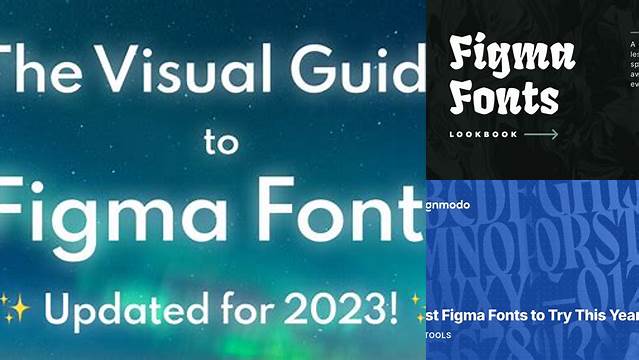
Figma Fonts: The Ultimate Guide
Hey guys! Ever wondered how to make your Figma designs pop with the perfect typography? You're in the right place! This guide is all about Figma fonts, covering everything from the basics to advanced tips and tricks. Let's dive in and make your designs look amazing!
H2: Understanding Figma Fonts
Understanding Figma fonts is the cornerstone of creating visually appealing and effective designs. Typography isn't just about picking pretty letters; it's about conveying your message clearly and creating the right mood. In Figma, you have a wide array of font options, from classic to contemporary, that can significantly impact your project's aesthetic and usability. Selecting the right font involves considering factors like readability, the overall tone of your design, and consistency with your brand identity. A well-chosen font can enhance readability, making your content more accessible and engaging for users. Think about the purpose of your design—is it formal and professional, or casual and playful? Your font choice should reflect this. Different fonts evoke different emotions, so consider what you want your audience to feel when they interact with your design. For example, a serif font might convey a sense of tradition and trustworthiness, while a sans-serif font might feel more modern and clean. Moreover, consistency is key. Stick to a limited number of fonts (usually two or three) throughout your project to maintain a cohesive look and feel. Mixing too many fonts can create a cluttered and unprofessional appearance. By carefully considering these factors, you can leverage Figma fonts to elevate your designs and create a memorable user experience. Remember, the right font can make or break a design, so it’s worth investing time and effort in choosing wisely. Don't be afraid to experiment and explore different font pairings to find what works best for your project.
H2: Using Google Fonts in Figma
Using Google Fonts in Figma is a fantastic way to access a massive library of free, high-quality typefaces, making your design process more versatile and efficient. Figma fonts from Google Fonts are readily available within the Figma interface, eliminating the need for manual downloading and installation. This seamless integration simplifies your workflow and allows you to quickly explore and implement different font styles in your projects. To use Google Fonts, simply open the text tool in Figma and select the font dropdown menu. You’ll find a vast selection of Google Fonts listed, categorized for easy browsing. You can search for specific fonts by name or filter by style, weight, and other properties to narrow down your options. The beauty of using Google Fonts is not only the extensive selection but also the consistency and reliability they offer. These fonts are optimized for web use, ensuring they render correctly across various browsers and devices. This is crucial for maintaining the visual integrity of your designs. When choosing Figma fonts from Google Fonts, consider the overall tone and purpose of your design. Some fonts are better suited for headings, while others are ideal for body text. Experiment with different font pairings to create a harmonious and visually appealing typography scheme. A common practice is to pair a serif font for headings with a sans-serif font for body text, or vice versa. This contrast can add visual interest while maintaining readability. By leveraging Google Fonts in Figma, you can elevate your designs with professional-grade typography without incurring additional costs. This accessibility and ease of use make Google Fonts an invaluable resource for designers of all levels.
H2: Font Styles and Weights in Figma
Exploring font styles and weights in Figma is crucial for creating designs that are both visually appealing and functionally effective. Figma fonts come in a variety of styles, such as regular, italic, bold, and bold italic, each serving a specific purpose in your design. Font weight refers to the thickness of the characters, ranging from light to extra bold, allowing you to create emphasis and hierarchy within your text. Using different font styles and weights strategically can significantly improve the readability and overall aesthetic of your design. For example, bolding a key phrase can draw the reader's attention and highlight important information. Italicizing text can be useful for adding emphasis or differentiating certain elements, such as quotes or captions. When working with Figma fonts, it's essential to maintain consistency in your style choices. Overusing different styles and weights can create a cluttered and confusing layout. A good rule of thumb is to stick to a maximum of three font styles or weights within a single design. This helps to maintain a clean and professional look. Consider the context of your design when choosing font styles and weights. A formal document might benefit from a more conservative approach, using subtle variations in weight to create hierarchy. In contrast, a playful design might incorporate bolder and more varied styles. Experimenting with different combinations is key to finding what works best for your specific project. Figma's intuitive interface makes it easy to adjust font styles and weights, allowing you to quickly iterate and refine your typography until you achieve the desired effect. By mastering font styles and weights, you can significantly enhance the visual impact and usability of your designs.
H2: Font Sizes and Line Height in Figma
Font sizes and line height are critical aspects of typography in Figma that significantly impact the readability and overall user experience of your designs. Figma fonts need to be appropriately sized to ensure that text is legible and comfortable to read, while line height, also known as leading, determines the vertical spacing between lines of text. These two elements work together to create a harmonious and accessible reading experience. Choosing the right font size depends on several factors, including the font style, the context of the text, and the target audience. Body text typically requires a larger font size than captions or footnotes. For web and mobile designs, a common starting point for body text is 16 pixels, but this can vary depending on the specific font. Headings, of course, should be larger to create a clear visual hierarchy and draw attention to key sections. Line height is equally important. If lines of text are too close together, the text can appear cramped and difficult to read. If they are too far apart, the text can feel disjointed. A general guideline is to set the line height to around 1.5 times the font size, but this can be adjusted based on the specific font and design context. Figma fonts can be easily adjusted in size and line height using the text panel in Figma. Experimenting with different values is crucial to finding the optimal balance for your design. Consider the overall layout and the amount of text on the page. If you have large blocks of text, a slightly larger line height can improve readability. For shorter paragraphs or headings, a tighter line height might be more appropriate. By carefully considering font sizes and line height, you can ensure that your designs are not only visually appealing but also highly readable and user-friendly.
H2: Font Pairing Techniques in Figma
Font pairing is an art and a science, and mastering it in Figma can significantly elevate the visual appeal of your designs. Figma fonts, when combined thoughtfully, can create a harmonious and engaging typography scheme. The goal of font pairing is to select two or three fonts that complement each other, enhancing readability and conveying the desired tone and style. A classic approach to font pairing is to combine a serif font with a sans-serif font. Serif fonts, with their decorative strokes, often lend a sense of tradition and formality, while sans-serif fonts offer a cleaner, more modern look. Using a serif font for headings and a sans-serif font for body text, or vice versa, can create a pleasing contrast that guides the reader's eye. Another technique is to pair fonts from the same typeface family but with different weights or styles. For example, you might use a bold weight for headings and a regular weight for body text. This approach provides a subtle yet effective way to create hierarchy and visual interest. When selecting Figma fonts for pairing, consider the overall mood and message of your design. A playful design might benefit from more whimsical or unconventional font choices, while a professional design might call for more conservative and classic options. It’s also important to ensure that the fonts you choose are legible and work well together at different sizes. Test your font pairings by creating mockups of your design and evaluating how the text looks in context. Figma's collaborative features make it easy to share your designs and get feedback from others. Don't be afraid to experiment and try different combinations until you find the perfect pairings that reflect your design's personality and purpose. Remember, great font pairing can transform a good design into an outstanding one.
H2: Using Local Fonts in Figma
Using local fonts in Figma allows you to incorporate custom typefaces that are installed on your computer, providing a wider range of options beyond the standard web fonts. Figma fonts can be sourced from various providers, and having the ability to use these local fonts ensures that your designs accurately reflect your brand's identity and stylistic preferences. To use local fonts, you'll need to install the Figma Font Helper application on your computer. This application acts as a bridge between Figma and your local font library, enabling Figma to access and display the fonts installed on your system. Once the Font Helper is running, any font you install on your computer will automatically become available in Figma. This process is seamless and straightforward, making it easy to expand your typographic palette. Using local Figma fonts is particularly useful when you have specific branding guidelines that require the use of proprietary or custom fonts. These fonts may not be available as web fonts or through services like Google Fonts, so the ability to use local fonts is essential for maintaining brand consistency. Additionally, some designers prefer to use fonts that they have purchased or downloaded from specialized foundries, which may offer unique and high-quality typefaces. When using local fonts, it's important to consider the licensing terms to ensure you are using them legally. Some fonts may have restrictions on commercial use or require specific licenses for web embedding. Always review the font's licensing agreement before incorporating it into your designs. By leveraging local fonts in Figma, you can create designs that are truly unique and tailored to your specific needs, ensuring that your typography is perfectly aligned with your brand and creative vision.
H2: Web Fonts vs. System Fonts in Figma
Understanding the difference between web fonts and system fonts in Figma is crucial for ensuring your designs look consistent across different devices and platforms. Figma fonts can be broadly categorized into these two types, each with its own advantages and considerations. Web fonts are fonts that are hosted online and loaded into a user's browser or application when they view your design. Services like Google Fonts provide a vast library of web fonts that can be easily integrated into Figma. The primary advantage of using web fonts is that they ensure consistency across different devices and operating systems. Regardless of whether a user has the font installed on their computer, the web font will be displayed correctly. This is particularly important for web design, where you want to ensure that your typography looks the same for all visitors. System fonts, on the other hand, are fonts that are pre-installed on a user's operating system, such as Arial, Times New Roman, or Helvetica. Using system Figma fonts can improve loading times, as the font doesn't need to be downloaded. However, the downside is that the availability of system fonts varies across different operating systems. A font that is available on macOS might not be available on Windows or Android, leading to inconsistent rendering of your design. When choosing between web fonts and system fonts in Figma, consider the target audience and the platforms your design will be viewed on. If consistency is paramount, web fonts are the preferred choice. They ensure that your design looks as intended, regardless of the user's device. However, if you are designing for a specific platform where you can rely on certain system fonts being available, using system fonts can be a viable option to improve performance. In many cases, a combination of both is used – web fonts for headings and key text elements, and system fonts for body text to balance consistency and performance.
H2: Font Licensing and Usage in Figma
Font licensing and usage are critical considerations when working with Figma fonts. Understanding the terms of use for different fonts ensures that you are using them legally and ethically in your designs. Fonts are intellectual property, and their usage is governed by licenses that specify how they can be used, whether for personal or commercial projects. Ignoring font licenses can lead to legal issues and financial penalties, so it’s essential to be aware of the rules. There are various types of font licenses, each with its own set of permissions and restrictions. Some fonts are free for both personal and commercial use, often released under open-source licenses. These fonts are typically a safe bet for any project. However, many fonts require a commercial license for use in projects that generate revenue, such as websites, marketing materials, or products for sale. Commercial licenses often come with specific terms, such as the number of users who can use the font, the types of projects it can be used in, and whether it can be embedded in digital documents or applications. When using Figma fonts, it’s crucial to check the licensing agreement for each font you incorporate into your design. Many font foundries provide detailed licensing information on their websites or in the font files themselves. Pay close attention to any restrictions on usage, such as limitations on embedding the font in web pages or mobile apps, or requirements for attribution. Google Fonts, a popular source of free fonts for Figma, typically offers fonts under the SIL Open Font License (OFL), which allows for free use in commercial projects. However, it’s still a good practice to review the license for each font to ensure compliance. By being diligent about font licensing and usage, you can protect yourself from legal issues and ensure that your designs are both beautiful and compliant.
H3: Kerning and Tracking Adjustment
Kerning and tracking adjustment are advanced typography techniques that allow you to fine-tune the spacing between characters, improving the overall appearance and readability of your text. Figma fonts, even when well-chosen, may require subtle adjustments to kerning and tracking to achieve optimal visual harmony. Kerning refers to the spacing between individual letter pairs. Certain letter combinations, such as